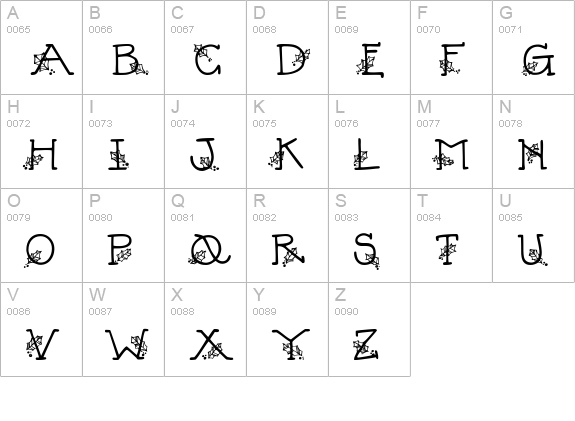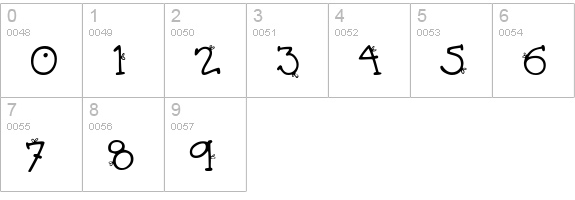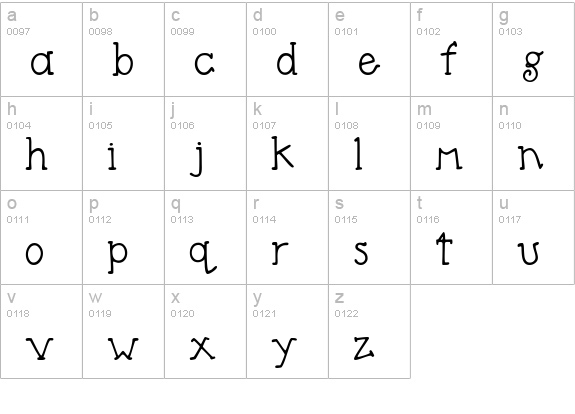
DJ Holly Days Font Details
Introducing DJ Holly Days font, a festive and whimsical typeface perfect for adding a touch of holiday cheer to your designs. This playful font features charmingly irregular letterforms that exude a sense of joy and celebration. With its unique design elements and quirky flourishes, DJ Holly Days is sure to make your projects stand out. Best of all, DJ Holly Days font is available for free download at FontsMarket.com. So go ahead and spread some holiday magic with this delightful font today!